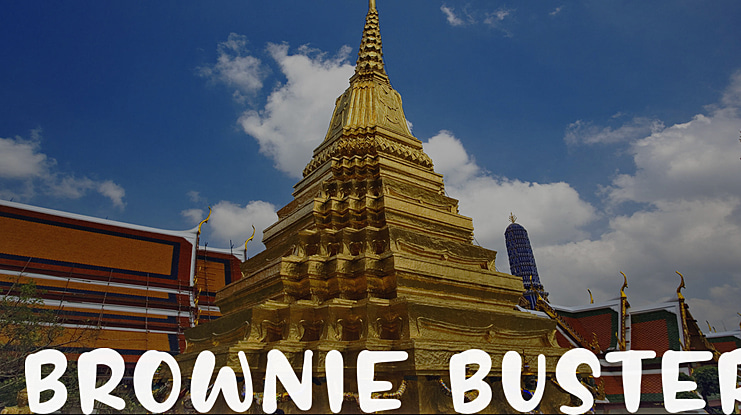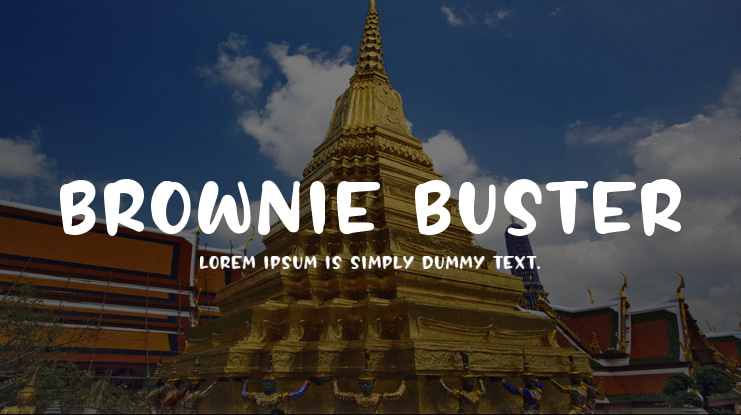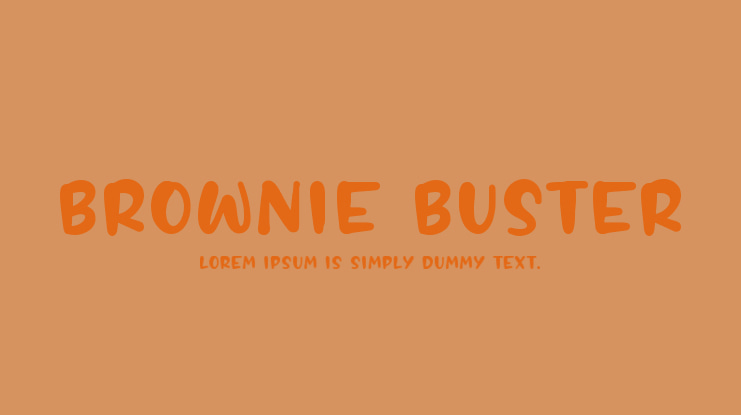
BROWNIE BUSTER Font
Balpirick Studio
Introducing by Balpirick Studio.
Proudly Present, BROWNIE BUSTER Font.
BROWNIE BUSTER is a Fat Handbrushed Font.
BROWNIE BUSTER is perfect for product packaging, branding project, megazine, social media, wedding, or just used to express words above the background.